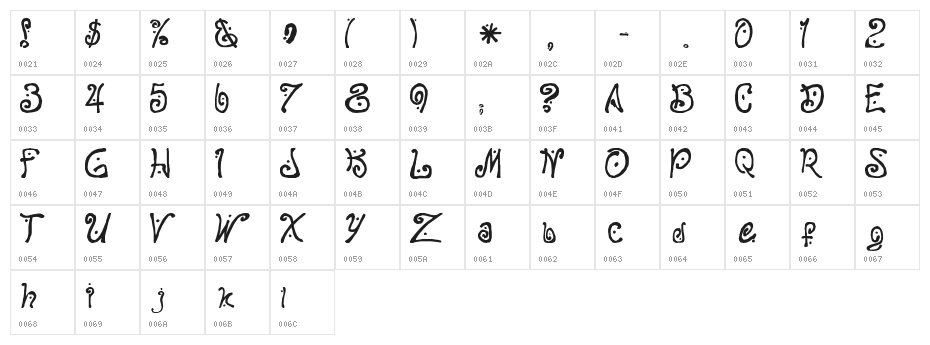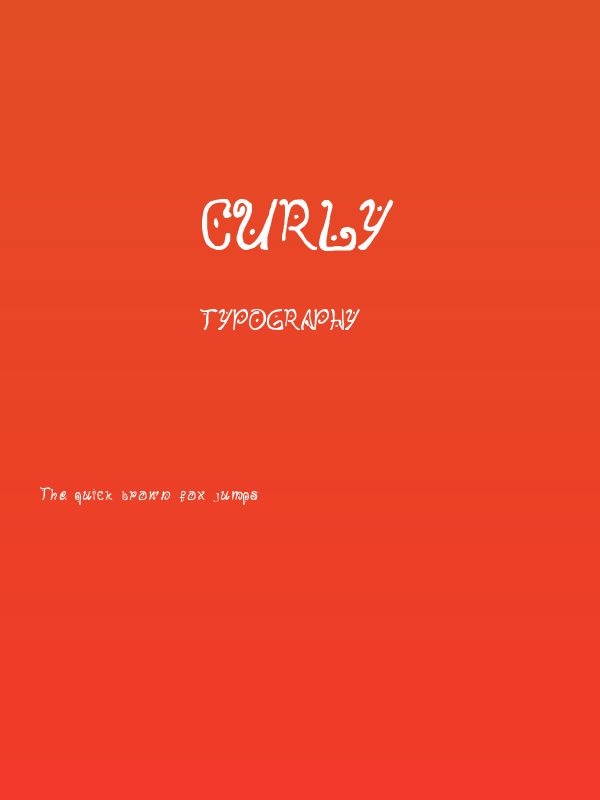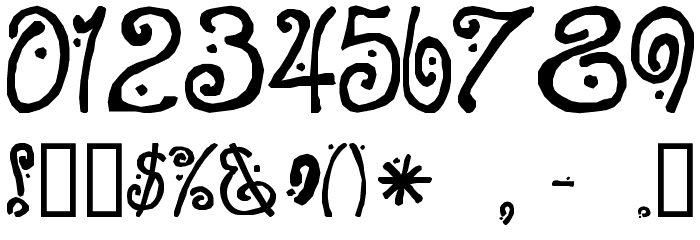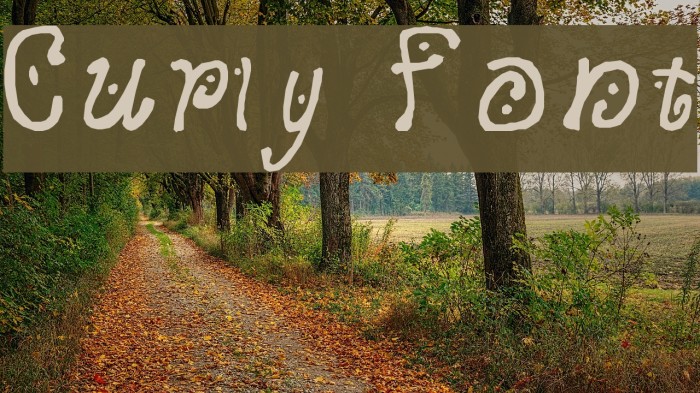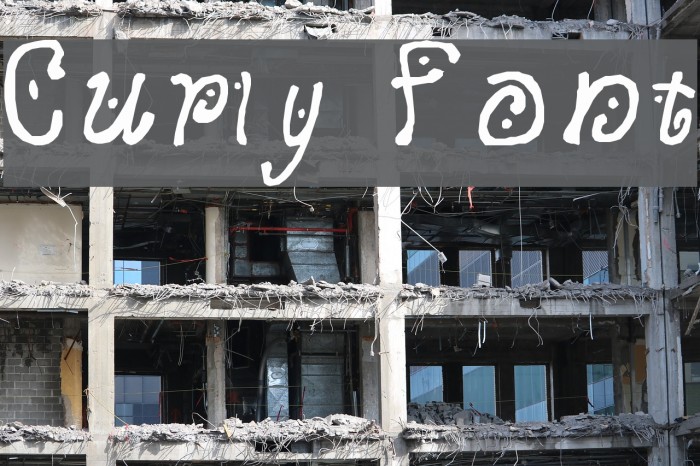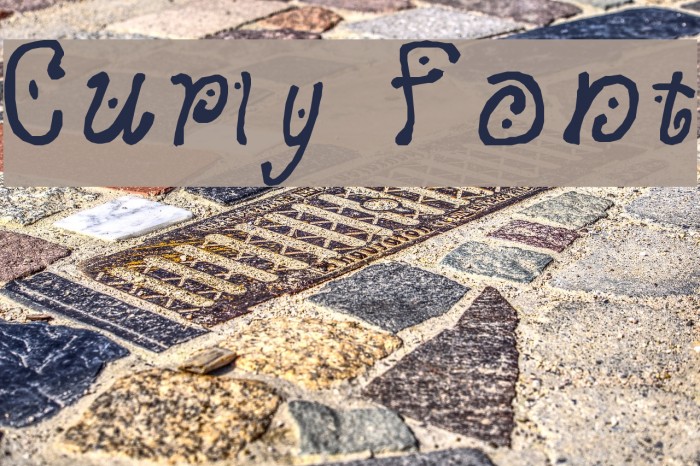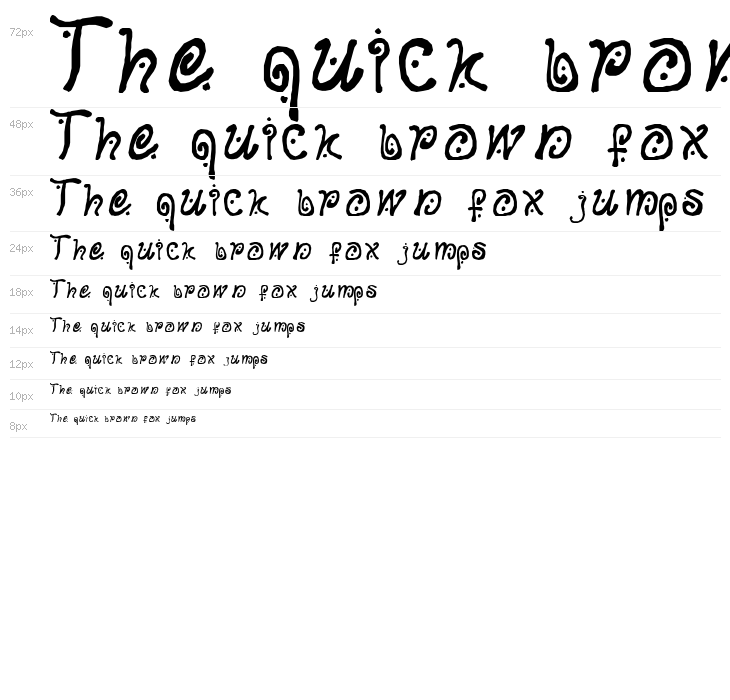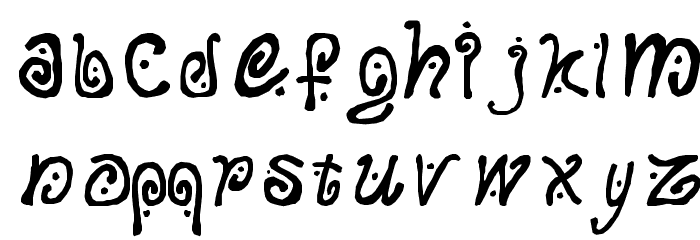
Curly Font
Curly Description
This font features a whimsical and playful design, characterized by its curly and looping strokes. Each letter has a unique, hand-drawn appearance, with exaggerated curves and swirls that give it a lively and dynamic feel. The uppercase and lowercase letters maintain a consistent style, with the uppercase being slightly more elaborate. Numbers and special characters follow the same playful theme, making the font suitable for creative and informal projects. The overall look is reminiscent of a fun, artistic script, perfect for adding a touch of personality to any design.
| Proposed Projects | Ideal for children's books, greeting cards, playful branding, and creative posters. |